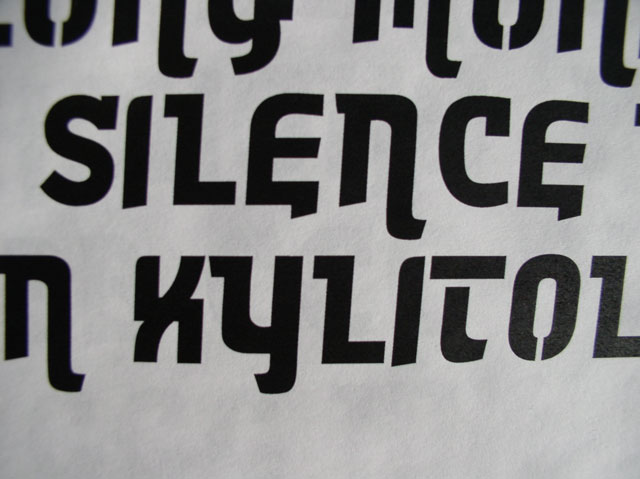
10 million points!!! The fourth day began by placing individual characters created by each student into Fontographer. A discussion took place on the proper techniques and adjustments of letterform structure and spatial relationships between letters. With this in mind, students then revised their characters to create a more unified alphabets. For tomorrow each students works on their specified letters and makes at least 20 correction notes to the print outs! Yes, we also should start to think about the name (really important!) and a final use for the type. Some students will create the missing letters as well as ornamental elements to work along the type.